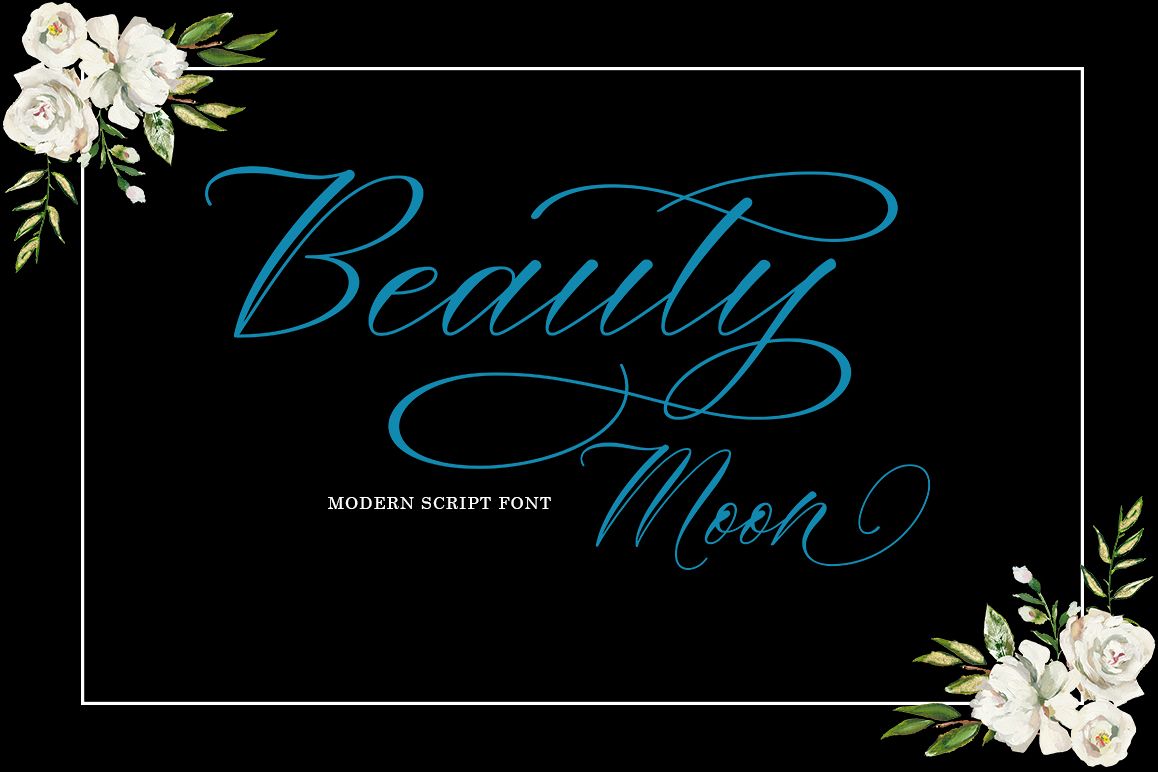
Beauty Moon Script
Beauty Moon Script is a new modern script font with regular base lines. Trendy and feminine style. Beauty Moon looks beautiful in wedding invitations, thank you cards, quotes, greeting cards, logos, business cards and more. Perfect for use in ink or watercolors. Includes beginning and end letters, alternatives, binding and support for many languages.